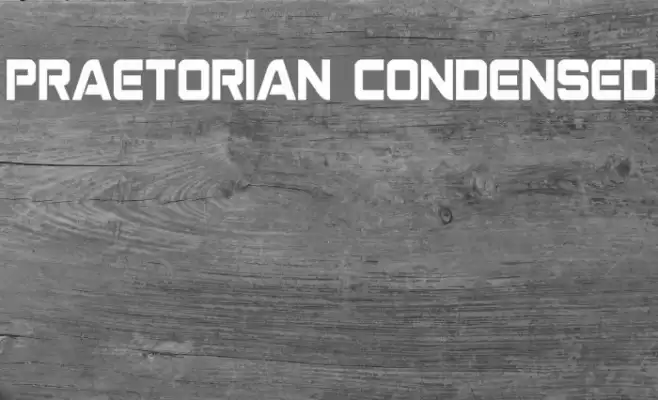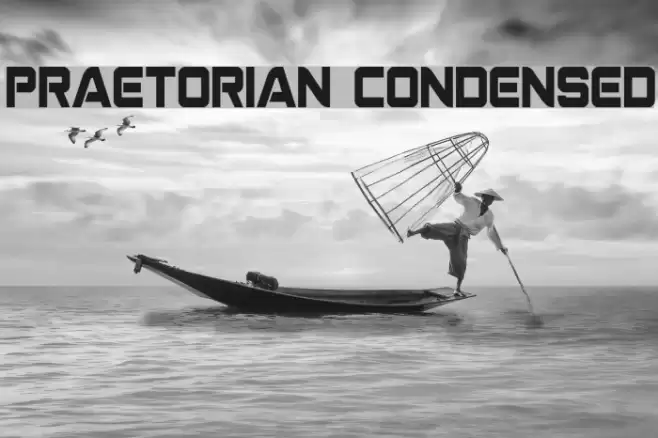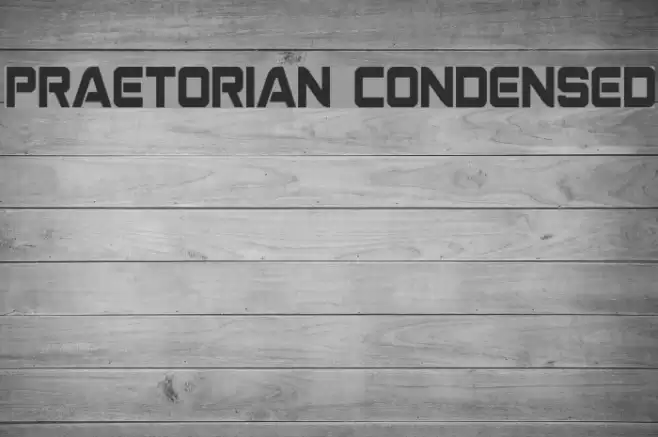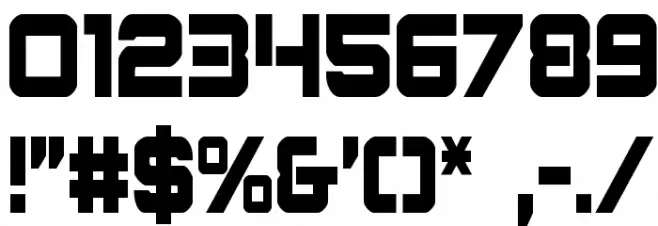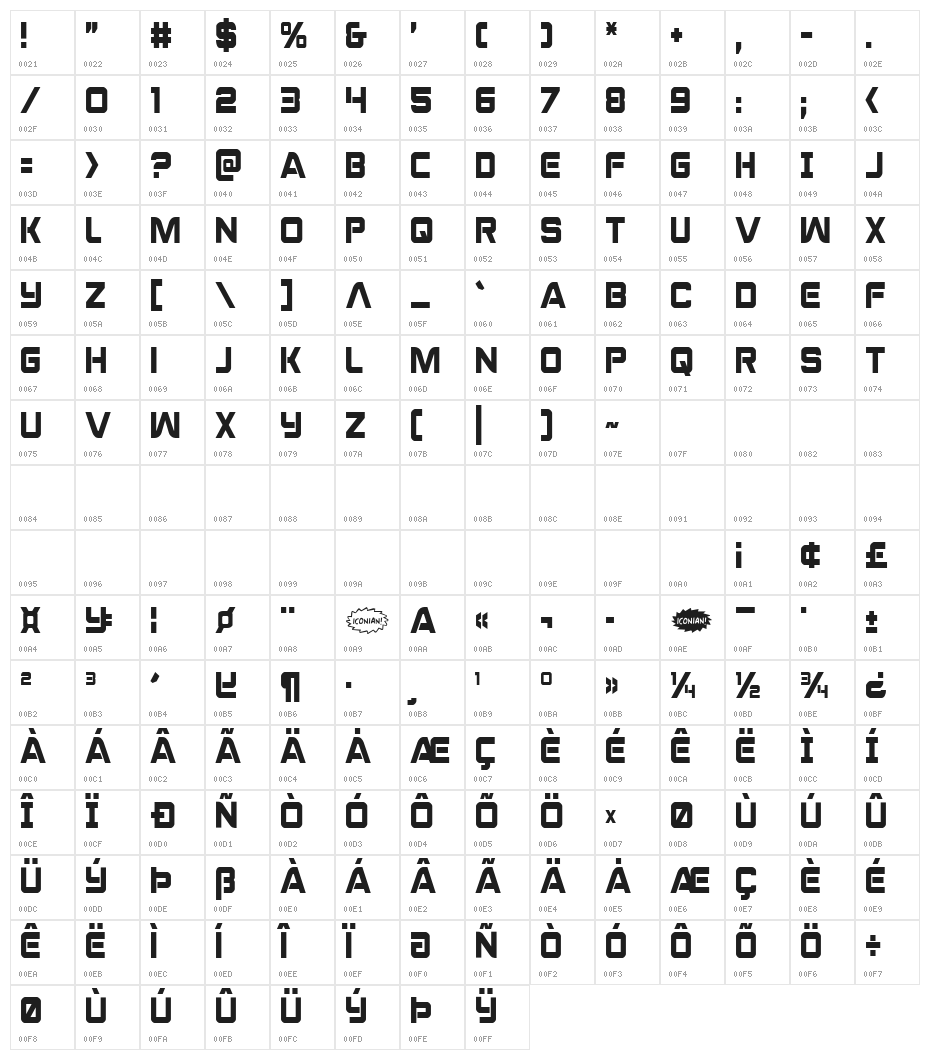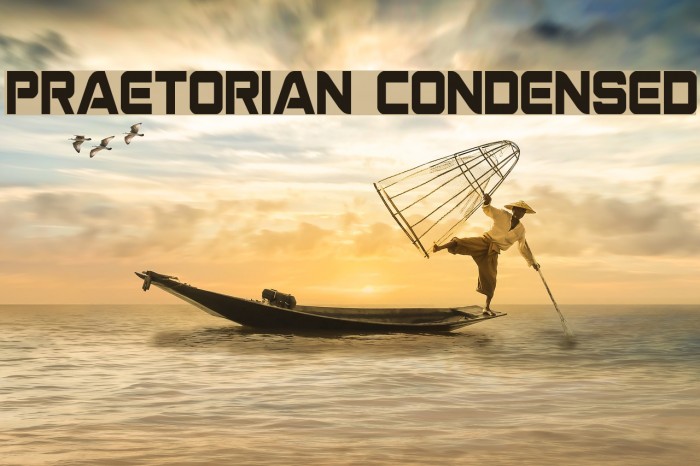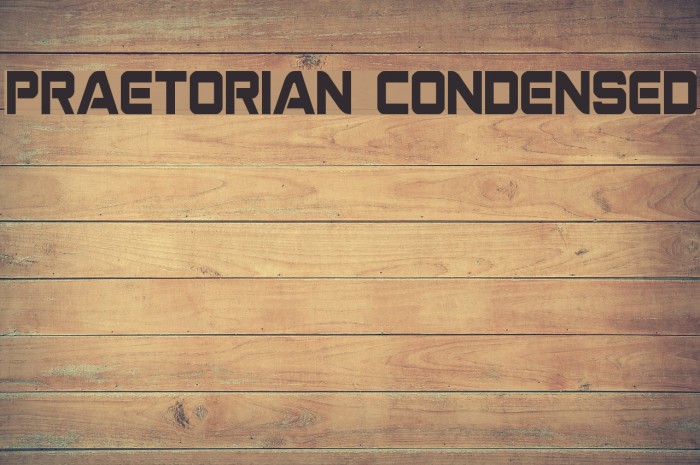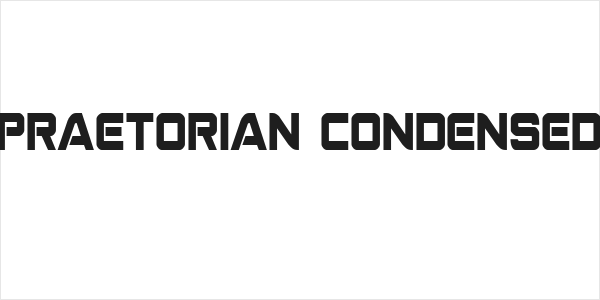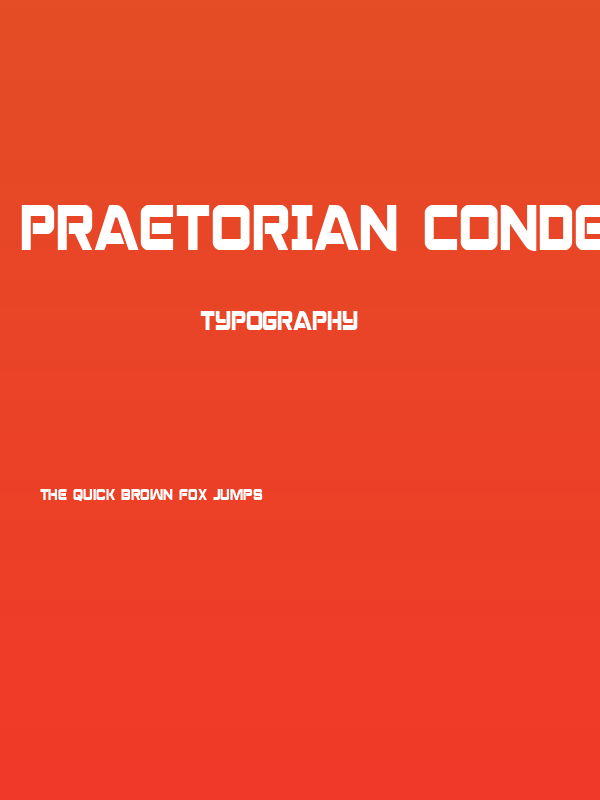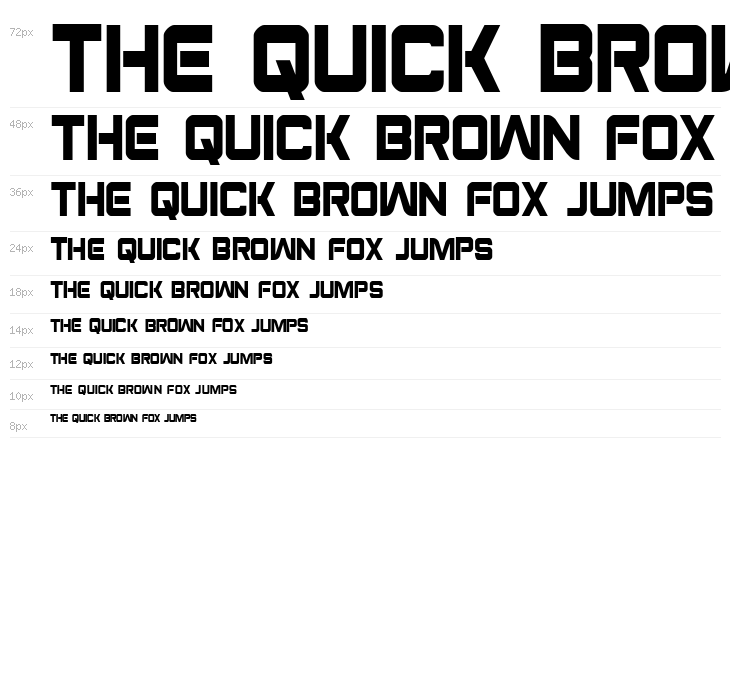
Praetorian Condensed Font
Praetorian Condensed Description
This font features a bold and condensed style with a strong geometric structure. The characters are blocky and robust, giving a sense of strength and stability. The uppercase letters are particularly striking, with sharp angles and a uniform height that creates a cohesive look. The numerals and special characters maintain the same boldness, ensuring consistency across all text. The overall appearance is modern and assertive, making it ideal for impactful headlines or branding that requires a strong visual presence.
A bold, condensed font with a geometric and modern style from Uncategorized fonts.
- Proposed Projects: Ideal for branding, posters, headlines, and any project requiring a strong visual impact.